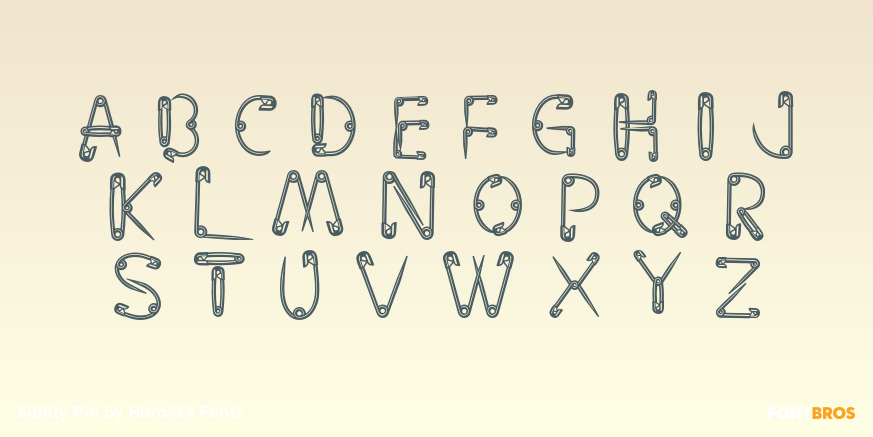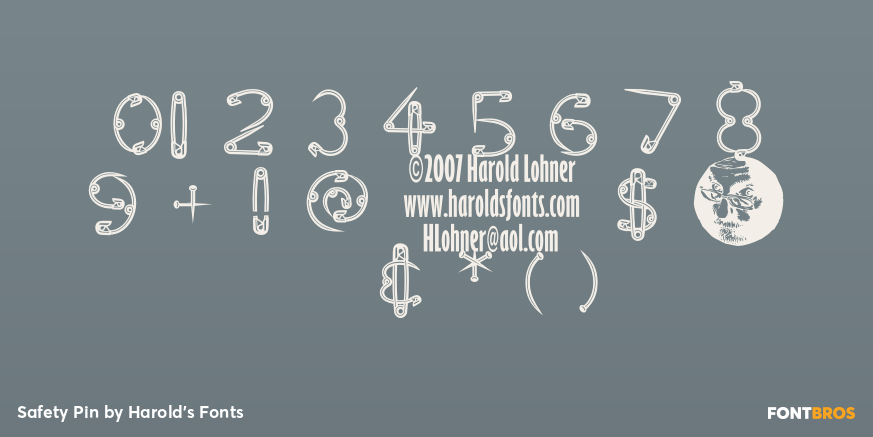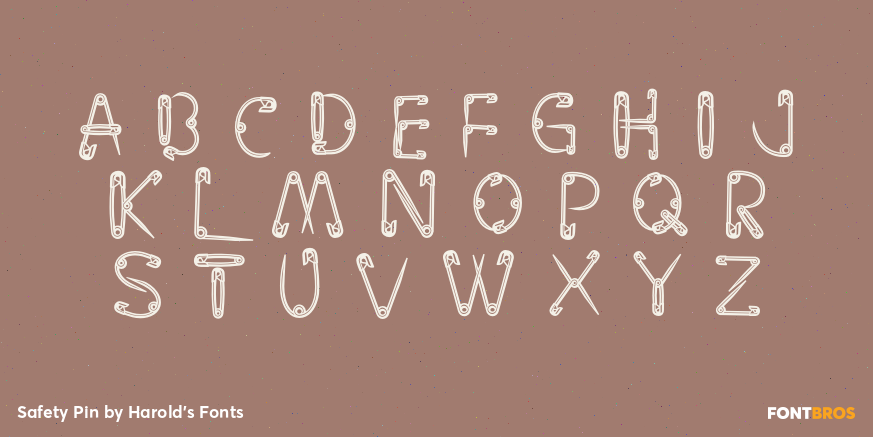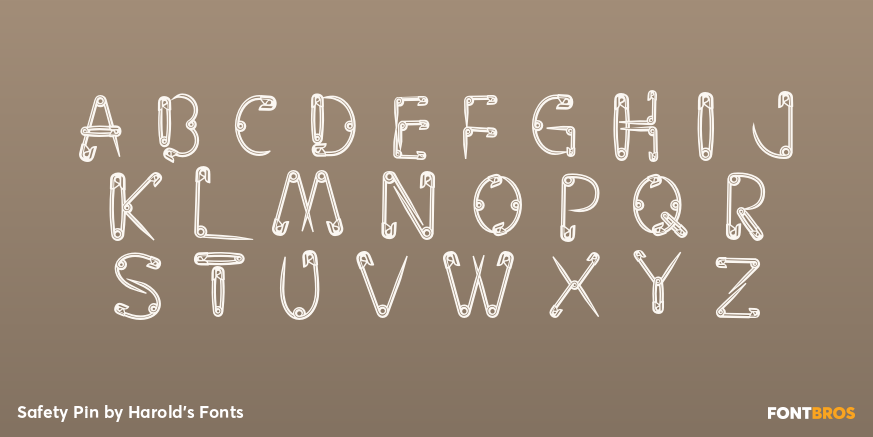
Safety Pin
Font Family by Harold's Fonts
SAFETY PIN has all its character made of safety pins. It was inspired by the June 1946 Ladies Home Journal cover. I started with J-O-U-R-N-A-L and imagined safety pins bent and twisted to form the other characters. May be the first font that appeals to both crafters and punks. The Regular version of the font has white highlights like Ringpin; the Solid version does not so you can create your own effects and shadows.